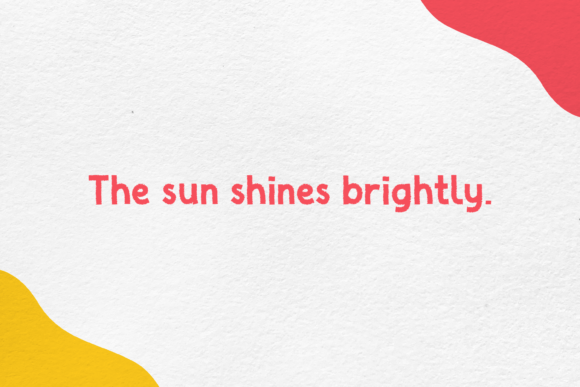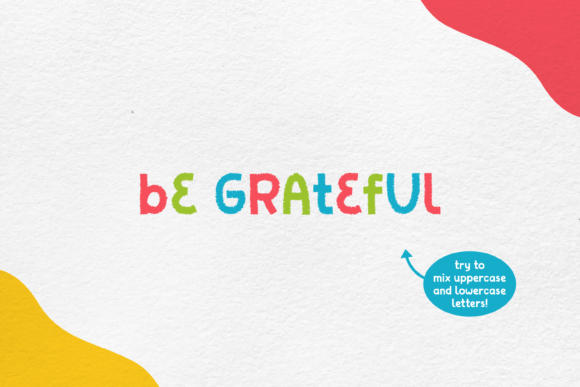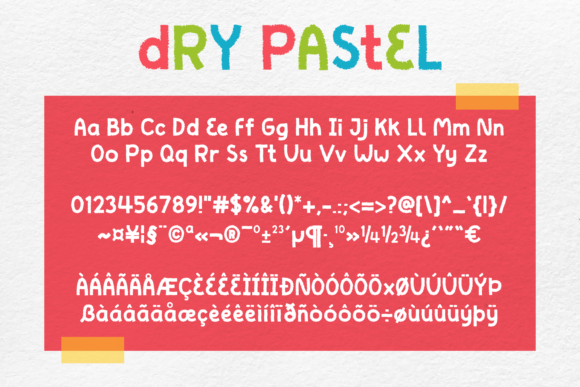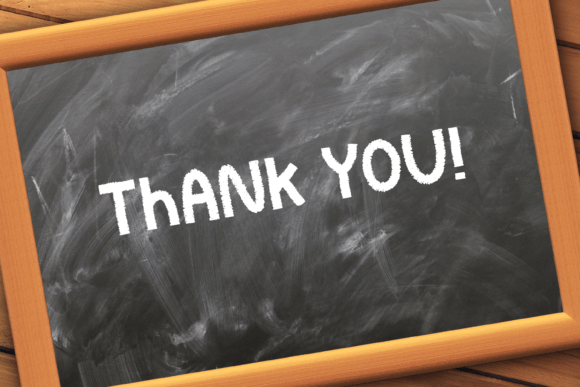
Where Creativity Meets Elegance
Imagine you’re brainstorming ideas for a new project, and suddenly, a burst of inspiration hits you. The words start flowing, and the design begins to take shape in your mind’s eye. You see vibrant colors, bold typography, and a sense of energy that’s hard to ignore. This is the moment when creativity meets elegance, and the perfect font can make all the difference.
Enter the Dry Pastel Font, a sans-serif font that’s designed to bring your designs to life. With its bold strokes and playful angles, this font is perfect for digital designs, packaging, and branding. Whether you’re a seasoned designer or just starting out, the Dry Pastel Font is a valuable tool to have in your arsenal. Its range of dynamic colors ensures that you can match your font to any style or theme, making it a versatile choice for any project.
Dry Pastel Font Key Features
- Font Style: A unique, distressed and pastel-colored font, perfect for creating a whimsical and artistic look.
- Font Size: Designed to be highly legible in sizes ranging from 12pt to 72pt, making it suitable for various design applications.
- Unique Characteristics: Features subtle texture and subtle color variations, giving it a distinctive, hand-drawn feel.
Dry Pastel Font Review
Overall, I think Dry Pastel Font is a beautiful and unique addition to any design project. Here are some things that really work well:
- ✨ Soft, pastel colors that add a touch of whimsy and playfulness to any design
- ✨ Versatile and suitable for a wide range of projects, from branding and marketing materials to digital products and editorial content
- ✨ Highly legible and easy to read, even at smaller font sizes
- ⚠️ Limited character set and language support, which may make it less suitable for projects that require a lot of internationalization
- ⚠️ Some users may find the font a bit too delicate or dainty, which may not be suitable for projects that require a more robust or dramatic feel
- ⚠️ May not be as effective in large block of text, where the soft colors and delicate lines can get lost
Overall, I think Dry Pastel Font is a great choice for designers who want to add a touch of personality and playfulness to their projects. While it may have some limitations, it’s definitely worth considering for the right project.
Tips for Getting the Most Out of Dry Pastel Font
Use Dry Pastel Font in designs where you want a soft, pastel effect.
Pair the font with a neutral background to make it stand out.
Dry Pastel Font is perfect for:
Children’s book illustrations
Branding and logos for creative businesses
Alternatives to Dry Pastel Font
Dry Pastel Font is a sans-serif typeface known for its unique blend of modern and elegant characteristics. However, for designers looking for alternatives, here are a few options to consider.
Avenir is a geometric sans-serif typeface designed by Adrian Frutiger in 1988. It’s known for its clean lines and modern feel, making it suitable for corporate and editorial designs. Avenir is more geometric and modern compared to Dry Pastel Font, which has a softer and more elegant feel.
Inter is a sans-serif typeface designed by Rasmus Andersson in 2020. It’s a highly legible and versatile font suitable for a wide range of designs, from digital interfaces to print materials. Inter is more neutral and modern compared to Dry Pastel Font, which has a distinctive aesthetic.
Lato is a sans-serif typeface designed by Łukasz Dziedzic in 2010. It’s a clean and modern font with a subtle rounded feel, making it suitable for designs that require a touch of elegance. Lato is more rounded and subtle compared to Dry Pastel Font, which has a more geometric feel.